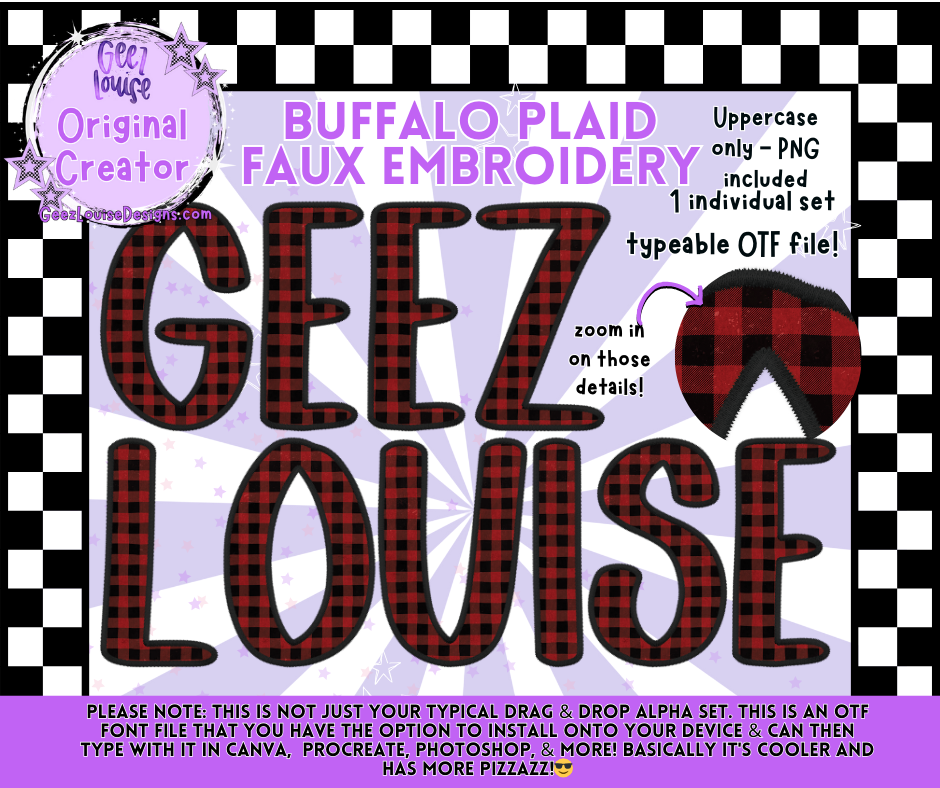
Buffalo Plaid Faux Embroidery Alpha Font | OTF & PNG Letters
🎄 Cozy up your designs with the Buffalo Plaid Faux Embroidery Alpha Font! 🎄
This digital set combines the rustic charm of classic red-and-black buffalo plaid with a stitched embroidery effect for a festive, handmade look. Perfect for holiday projects, farmhouse vibes, and rustic-inspired designs.
Unique faux embroidery detail adds texture and depth.
Perfect for Christmas shirts, ornaments, signs, mugs, and seasonal decor designs!